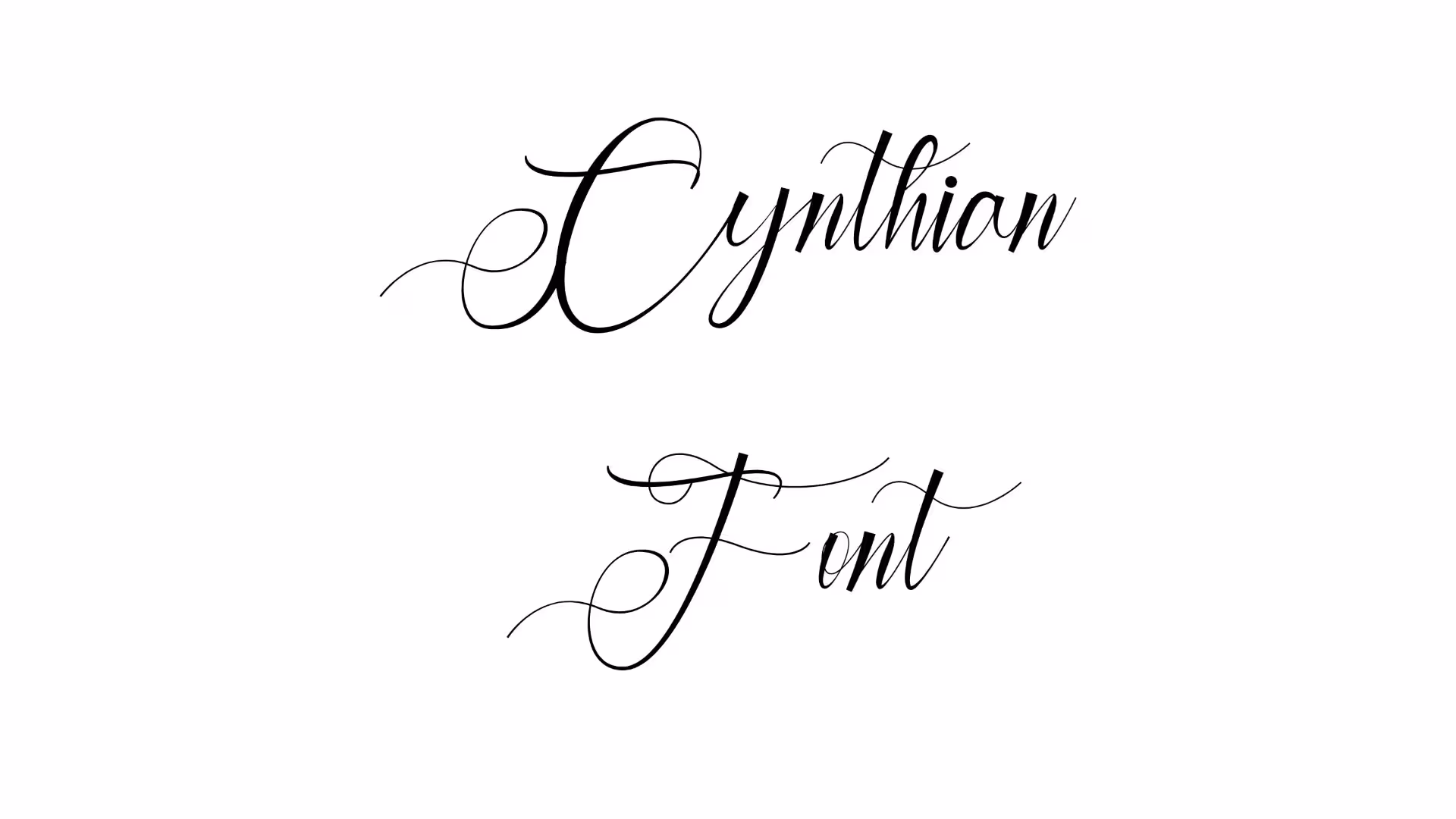
Cynthian
Cynthian is a calligraphy font made by Jada Akbal. The letters have the smooth movement of real pen lettering, which is why even a single name looks special in it. It's a free download, and you can try it with your own text in the preview above first.
What You Can Type With Cynthian
With complete upper and lowercase letters and all ten digits, Cynthian is ready for real wording, not just a single headline. Everyday marks like &, !, ? and @ are there too. There are no accented letters like é or ñ, so it's best kept to English text.
Where Cynthian Works Best
Think of Cynthian for wedding invitations, certificates and elegant quotes. Script fonts read best in short bursts, so keep it to names, titles and one-line quotes. Skip all caps: script capitals are drawn to start a word, not to fill one.
Does Cynthian support accented letters?
No. Cynthian has no accented letters such as é, ñ or ü, so it's best for English text.